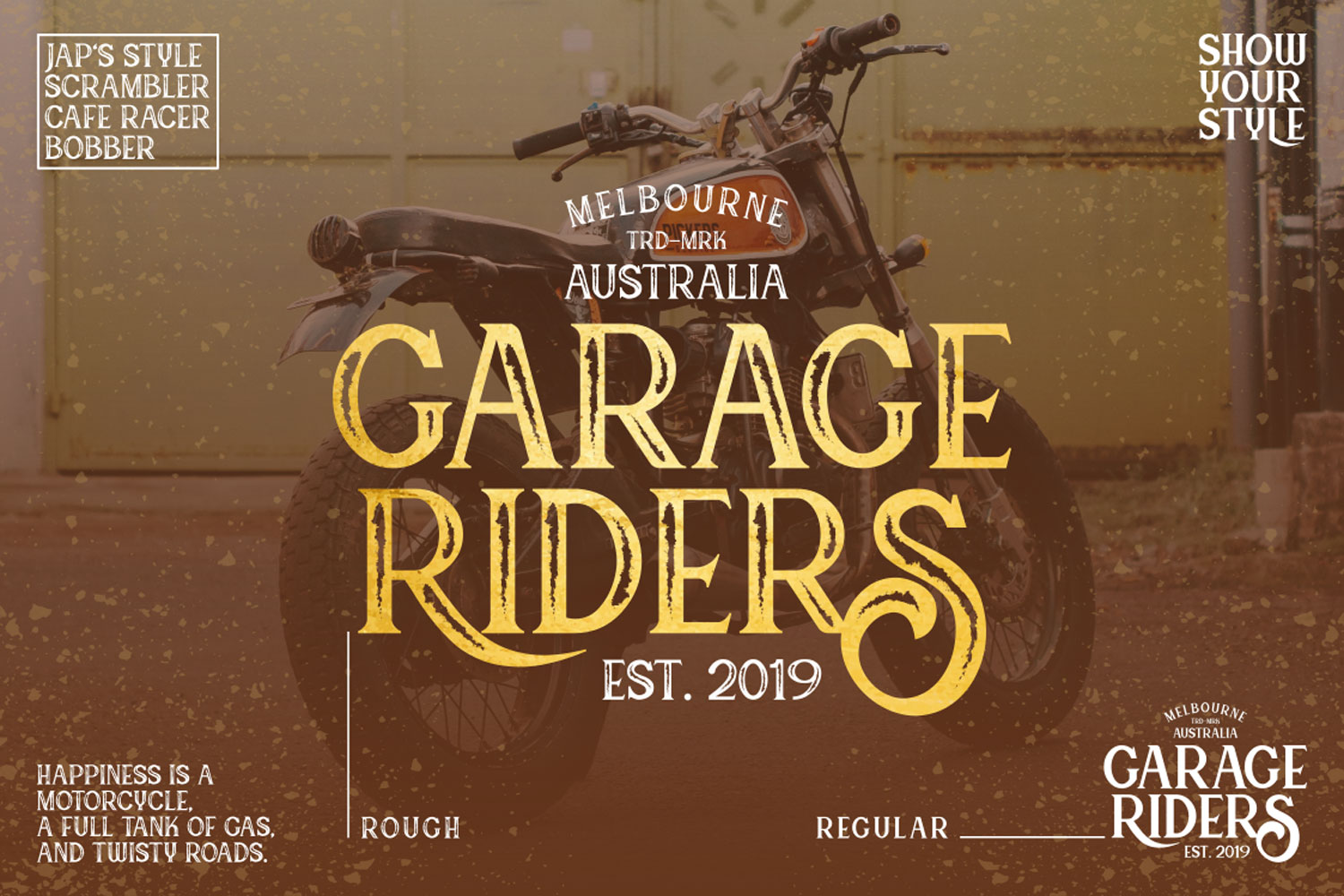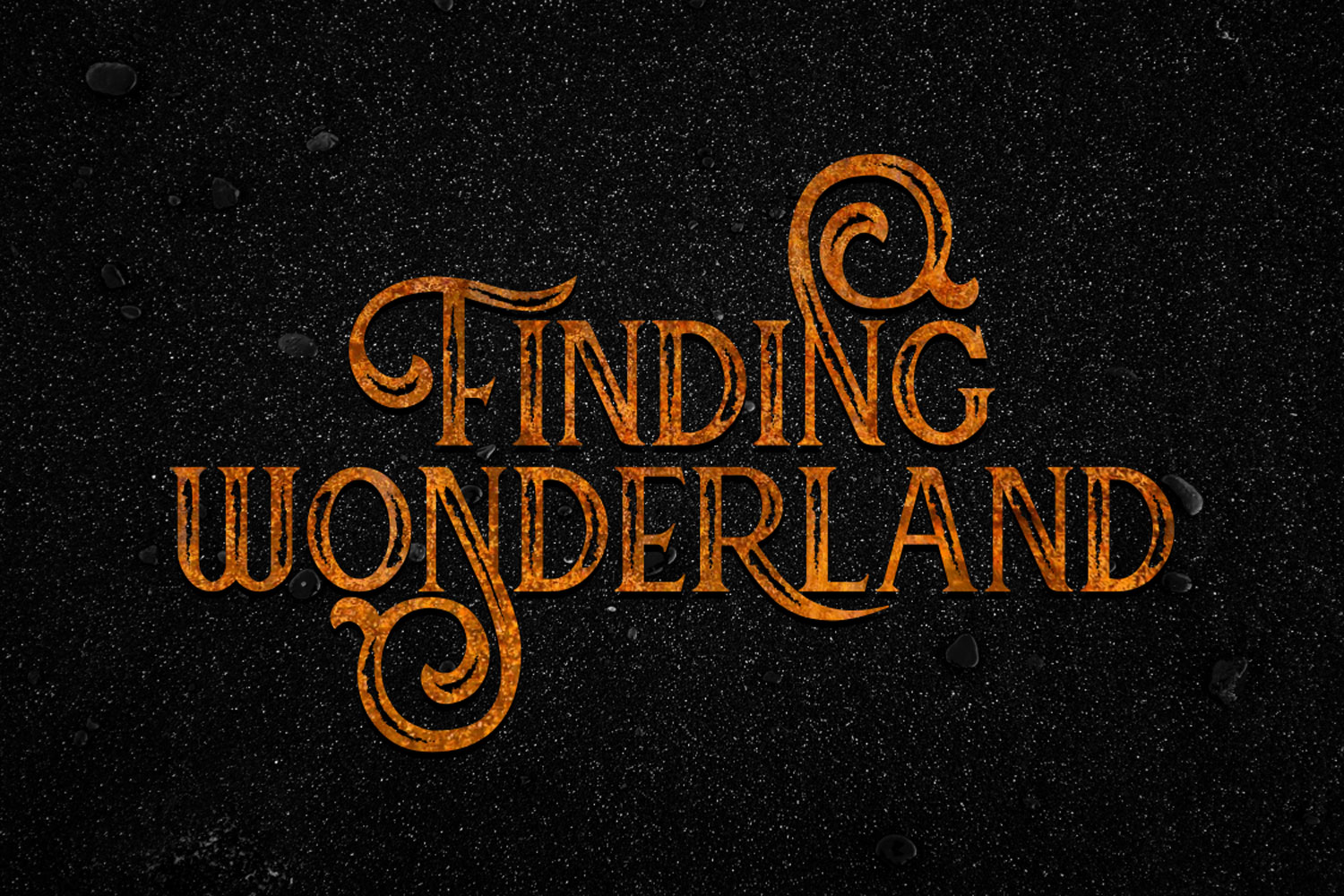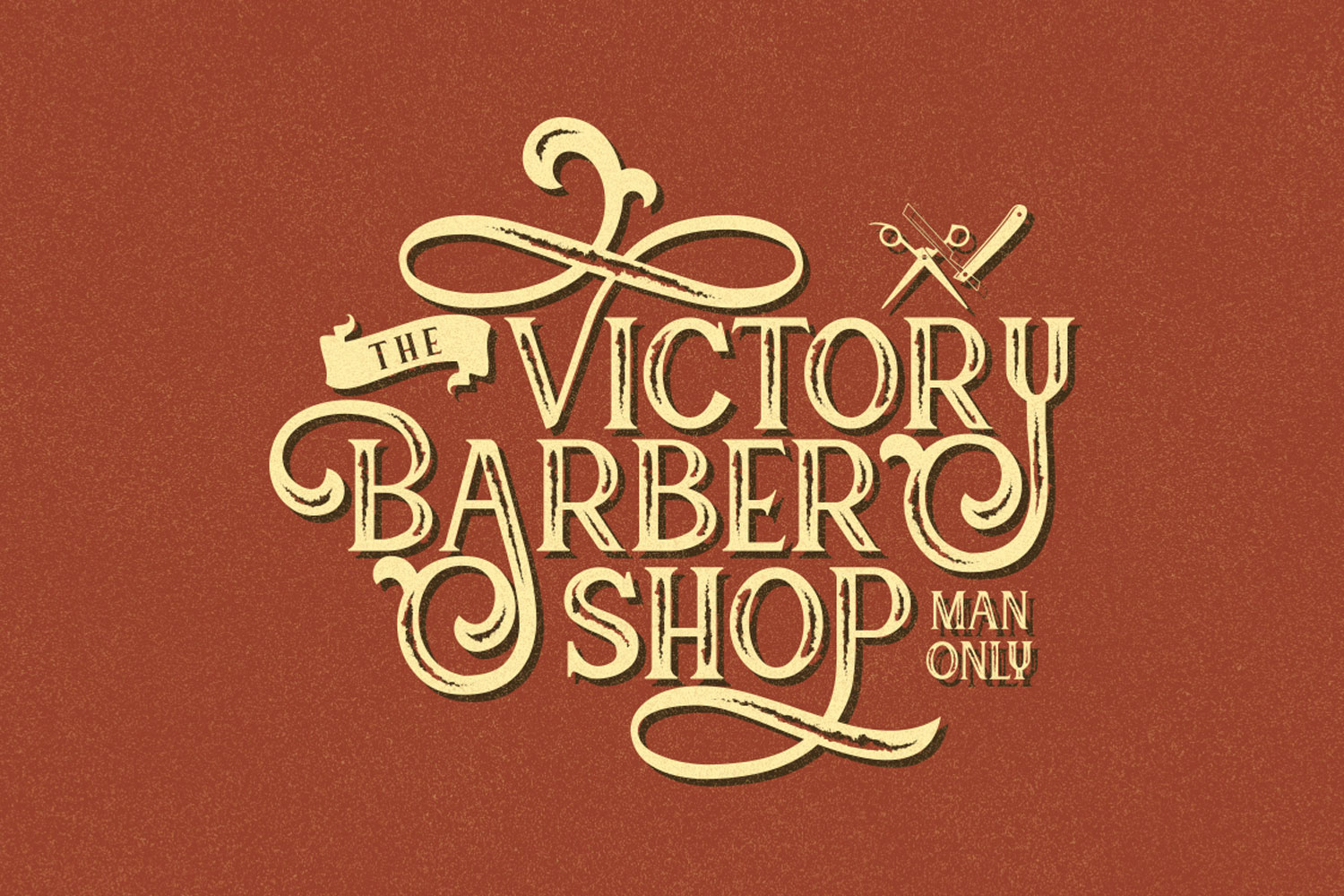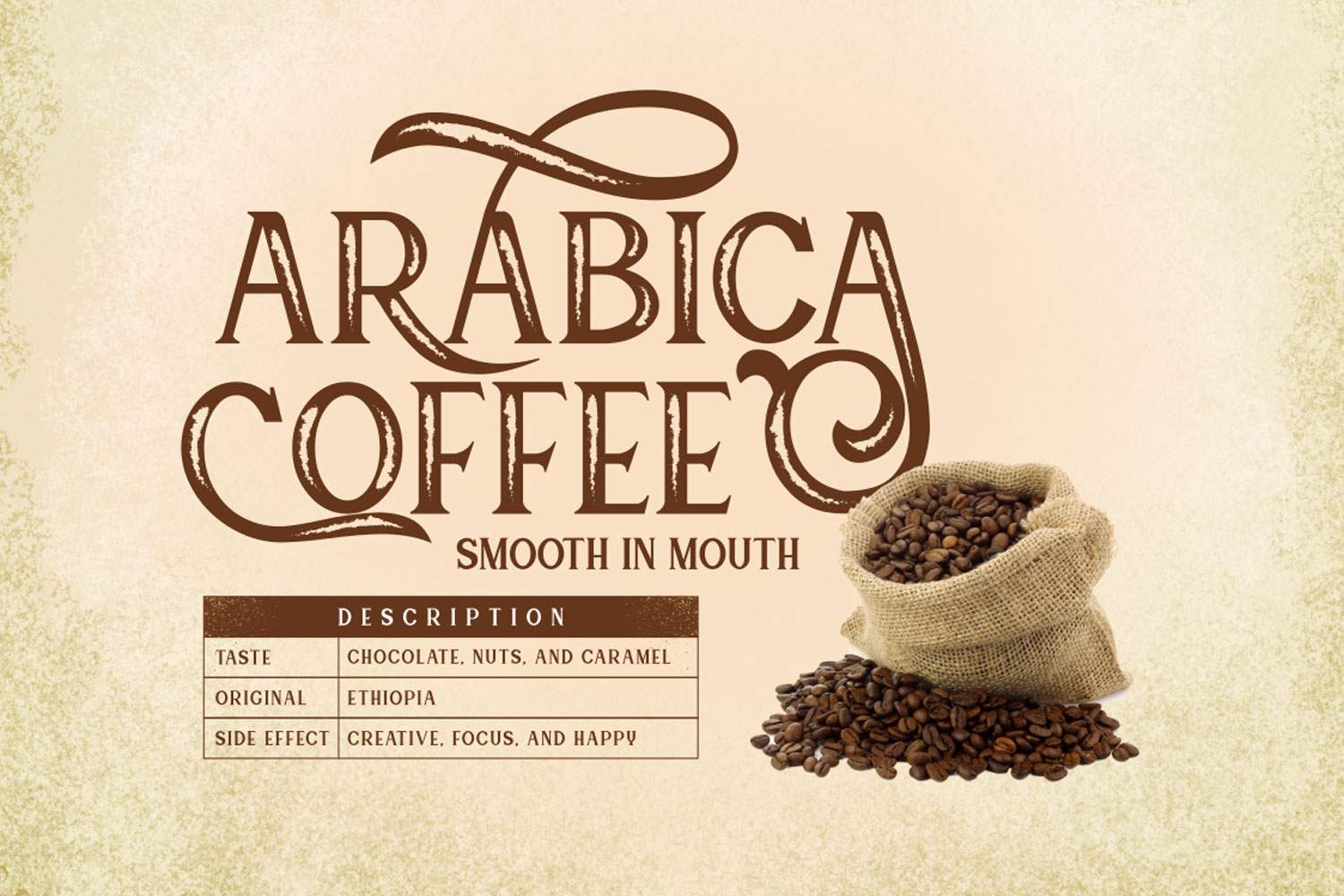
Canting Free Font
Canting Free Font is a decorative serif font. It perfectly represents vintage esthetics in a modern and minimalist way. The font includes special uppercase letters and alternate characters. The font is perfect for elegant logo design, product packaging, quotes, lettering, poster design, brand identity, and many more. This free typeface was designed by the talented Ibnu Utomo. If you like it don’t forget to check out the full version.